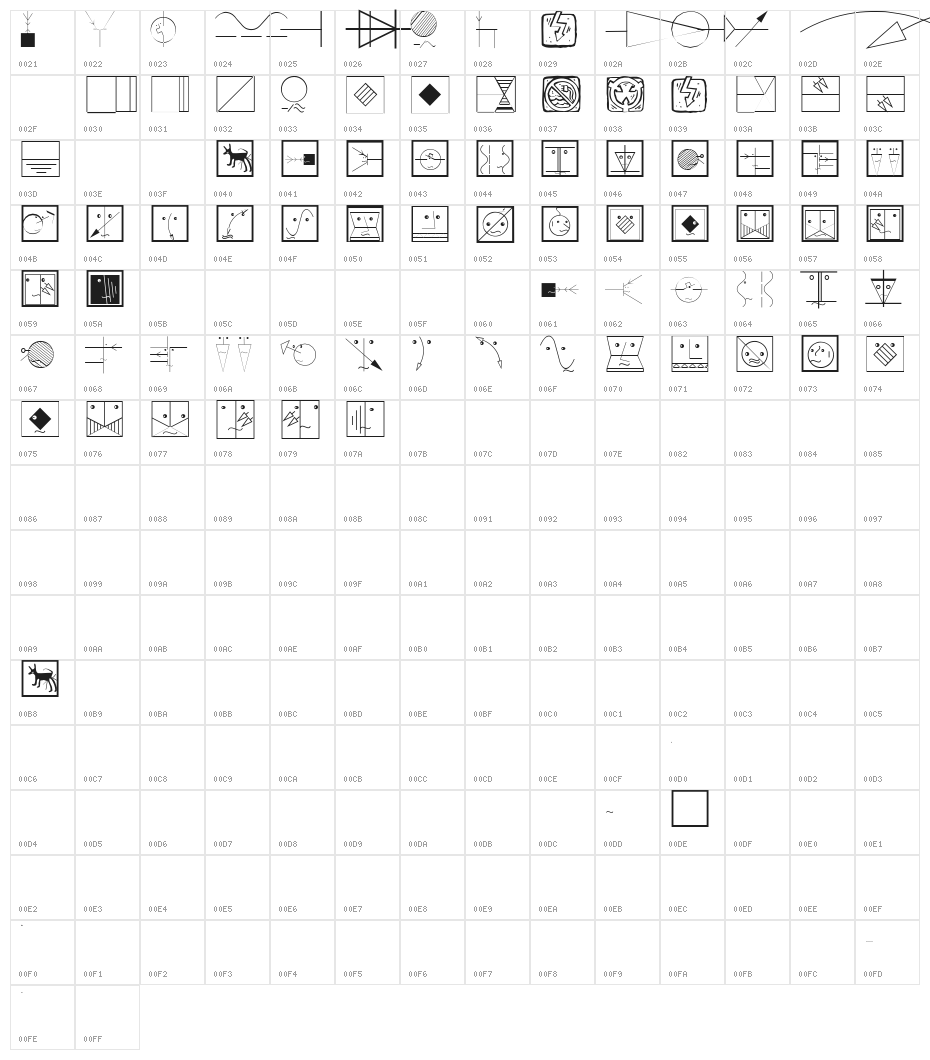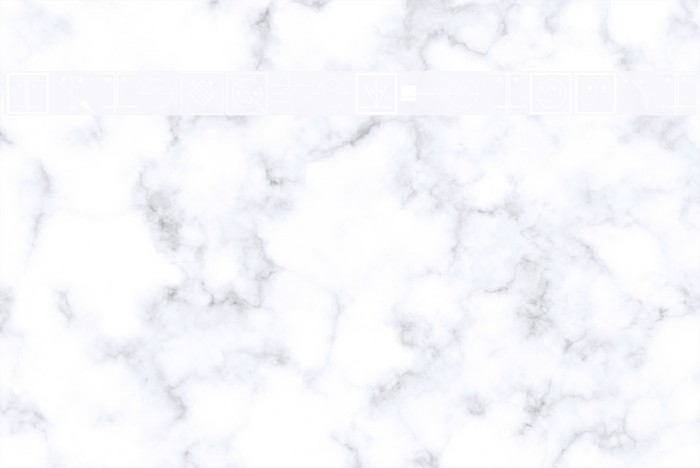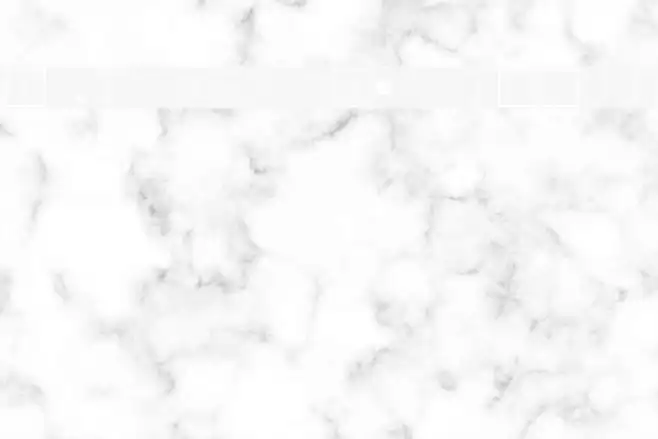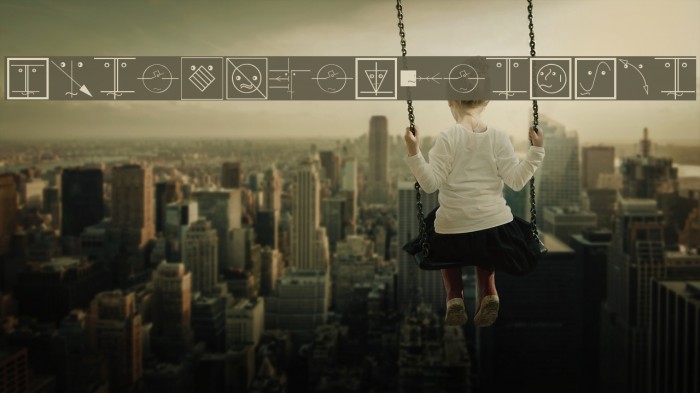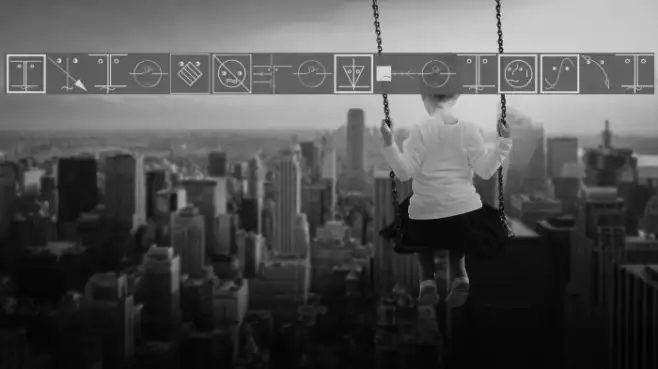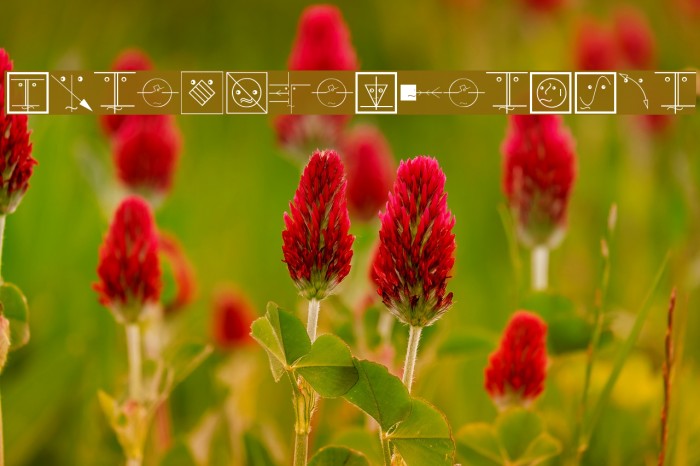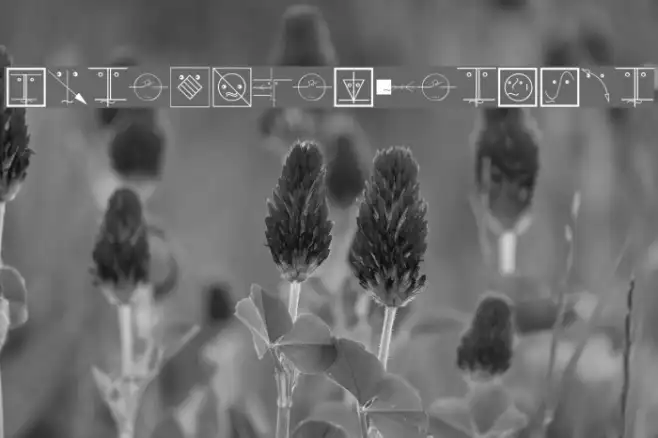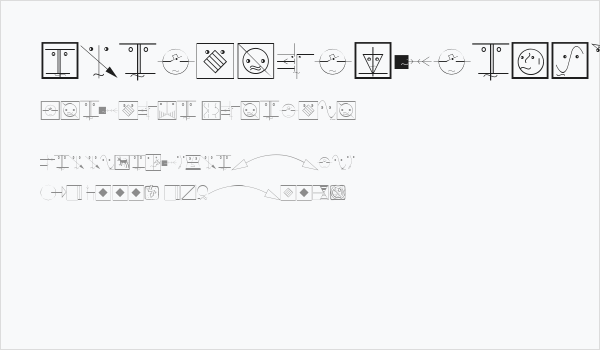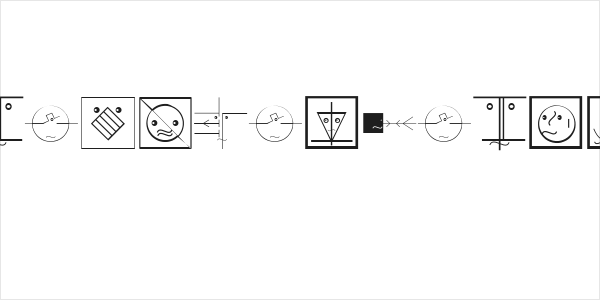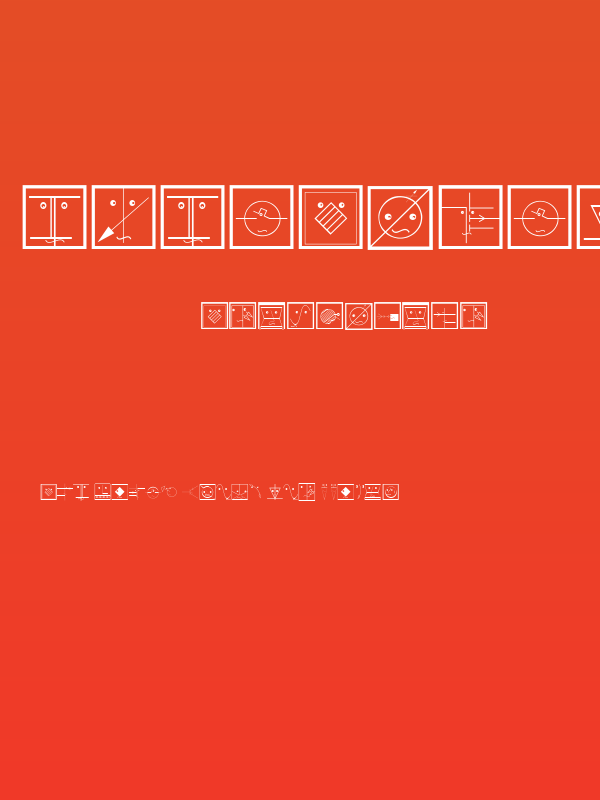
ElectricFacesOne Font
ElectricFacesOne Description
This font is a highly decorative and abstract collection of symbols and shapes, each enclosed within a square. The characters are composed of geometric forms, lines, and dots, often resembling faces or abstract art. The design is playful and artistic, with each symbol offering a unique visual experience. The style is reminiscent of modern art, with a focus on creativity and expression rather than traditional readability. The characters vary significantly in complexity, with some being simple line drawings and others featuring intricate patterns and shading. This font is not suitable for standard text but serves as a creative tool for artistic projects.
| Use Case | Logos, Art projects, Creative displays |
| Proposed Projects | Ideal for art projects, creative posters, unique branding elements, and experimental design work. |